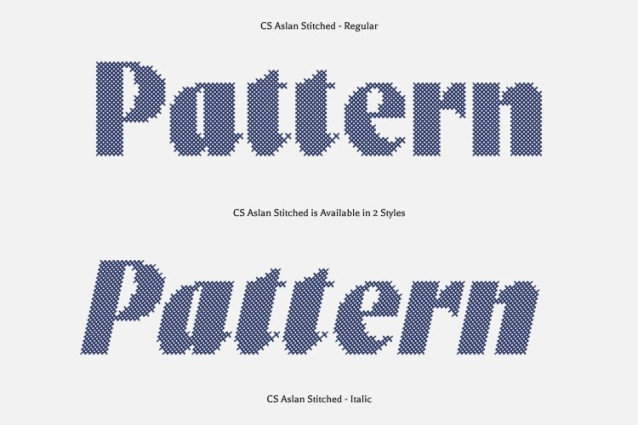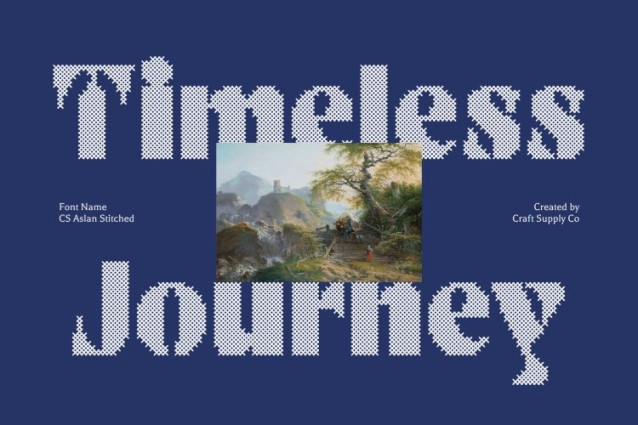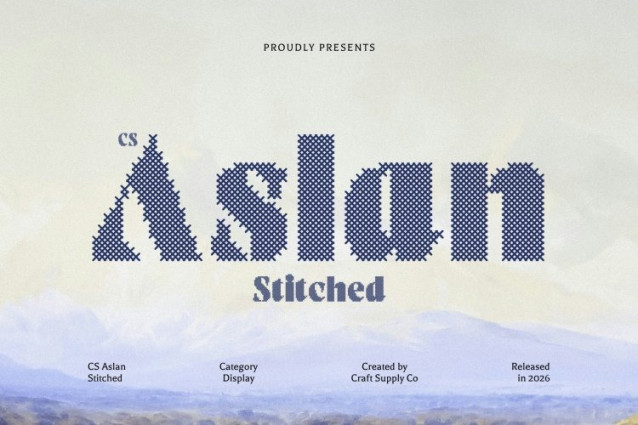
CS Aslan Stitched Font
CS Aslan Stitched Font is a bold modern sans serif font that combines confident, strong letterforms with refined detailing. Enhanced with a stitched style that mimics thread sewn or embroidered on fabric, this version adds texture and warmth to its modern structure. The cross-shaped stitch pattern creates a subtle embossed effect, giving the font a handcrafted, nostalgic charm while retaining its polished, contemporary finish.
Elegance Built with Authority
The font’s strength lies in its balance of boldness and grace. This font features sharp edges, pronounced strokes, and carefully tuned proportions, now enriched with a stitched texture that introduces depth and a personal, warm character. This combination ensures a commanding presence while adding a handcrafted, approachable nuance perfect for conveying professionalism, luxury, and credibility.
Designed for Impactful Visual Identity
This is ideal for creating a strong yet refined typographic voice. Its bold weight ensures visibility across media, while the stitched detailing enhances its elegance and tactile appeal. Use it for logos, titles, product labels, packaging, or web banners to achieve a rich and authoritative tone with a handcrafted touch.
Versatility Across Premium Applications
Whether for editorial layouts, branding, advertising, or high-end print collateral, delivers clarity, sophistication, and timeless style. Its modern structure paired with the embroidered stitch texture makes it adaptable across trends, ensuring a visually engaging and distinguished presence in any premium design project.